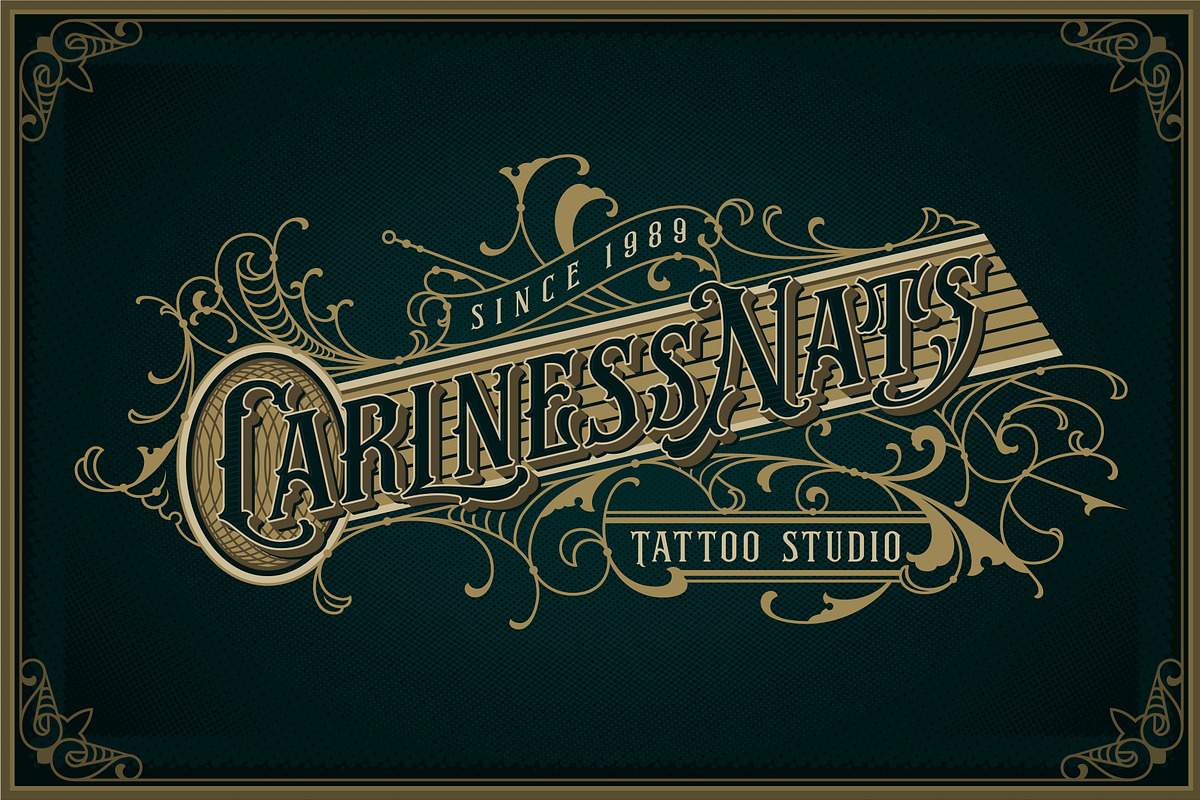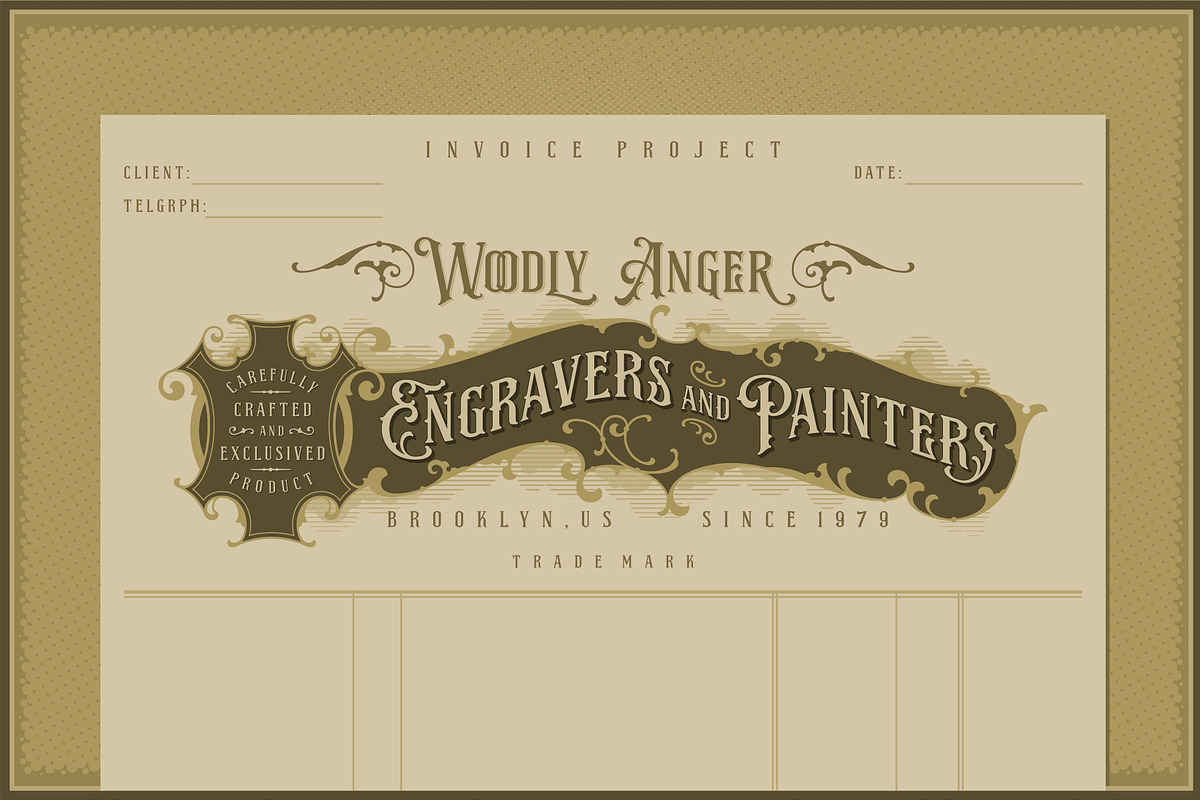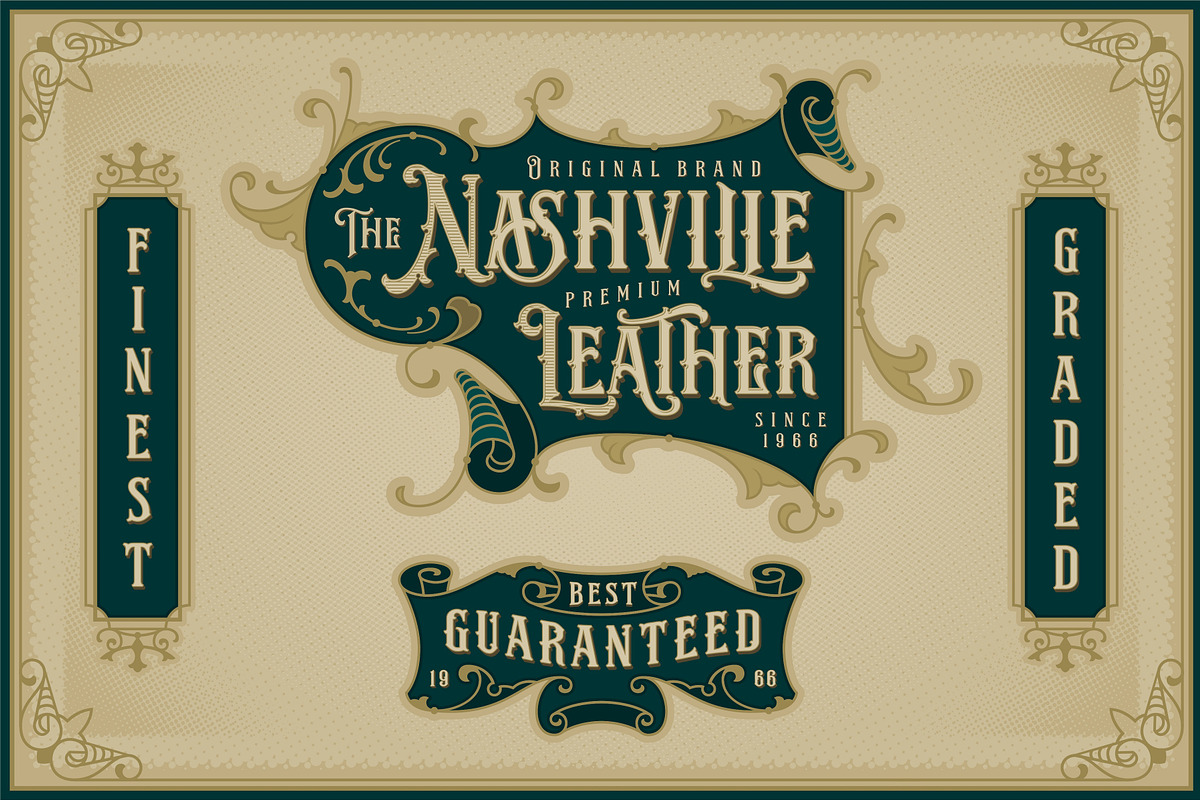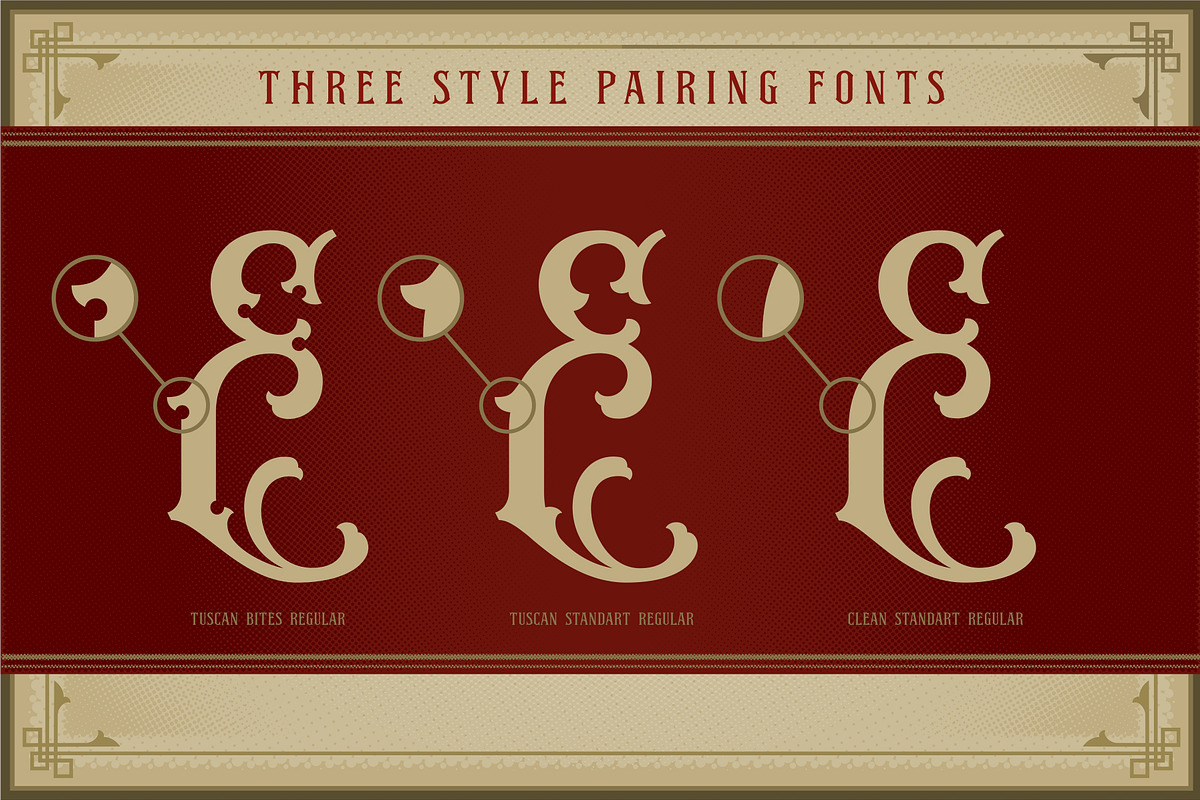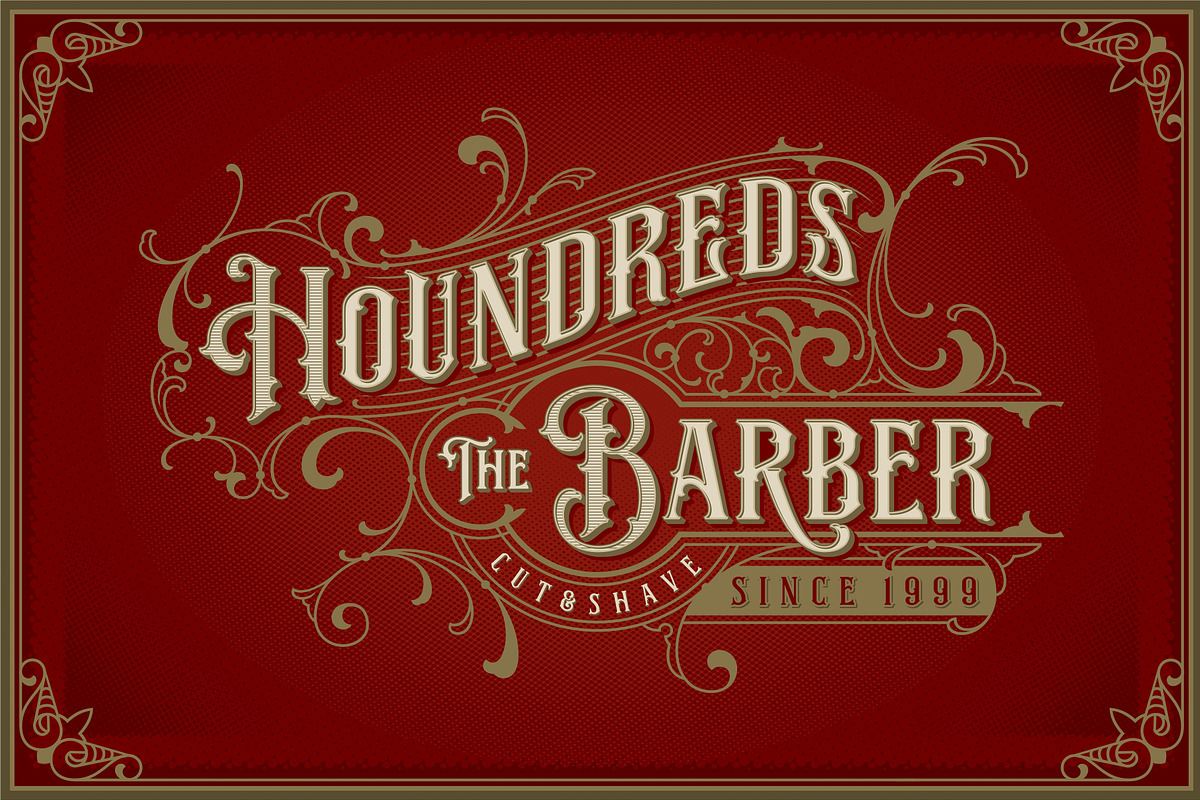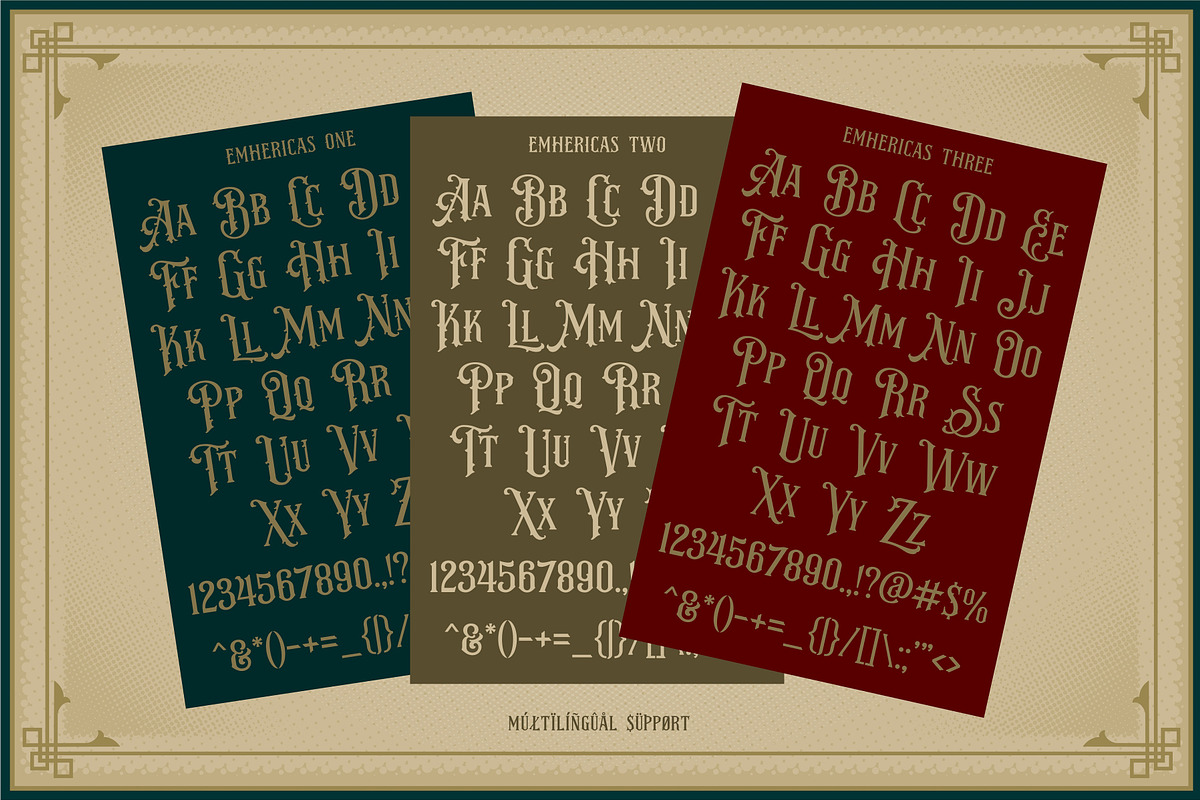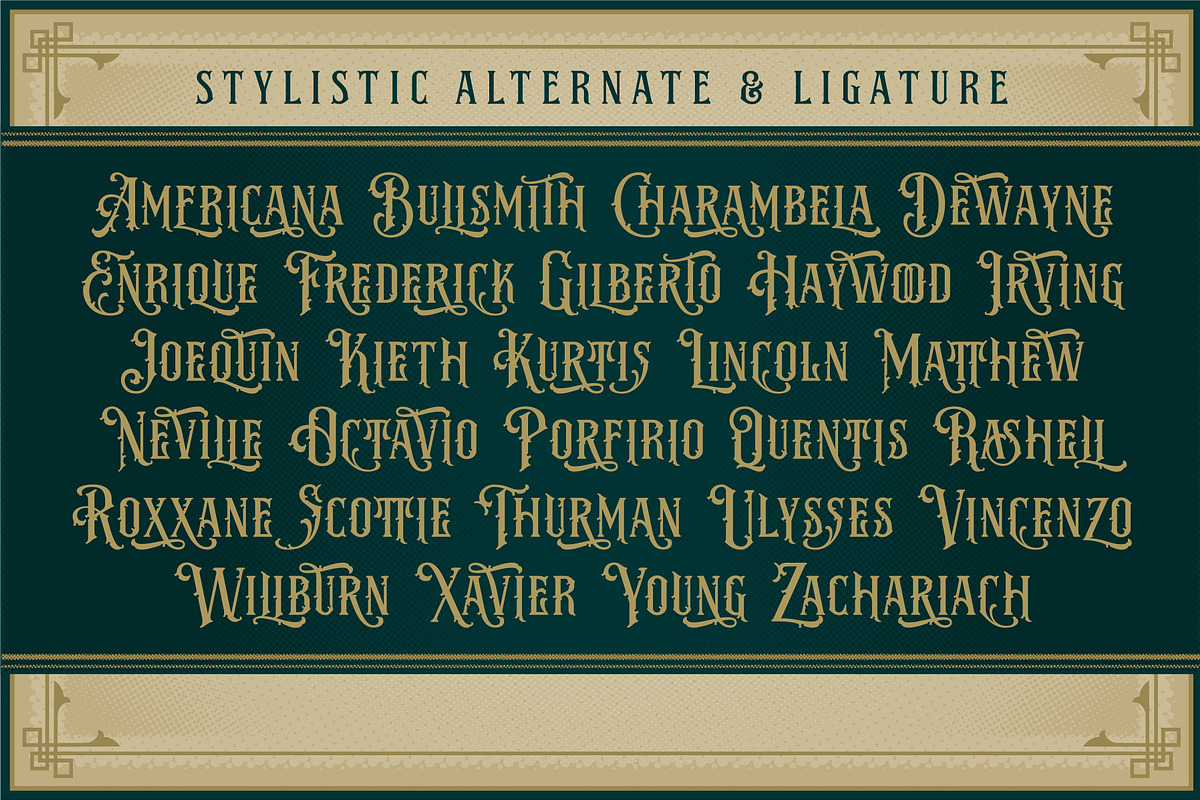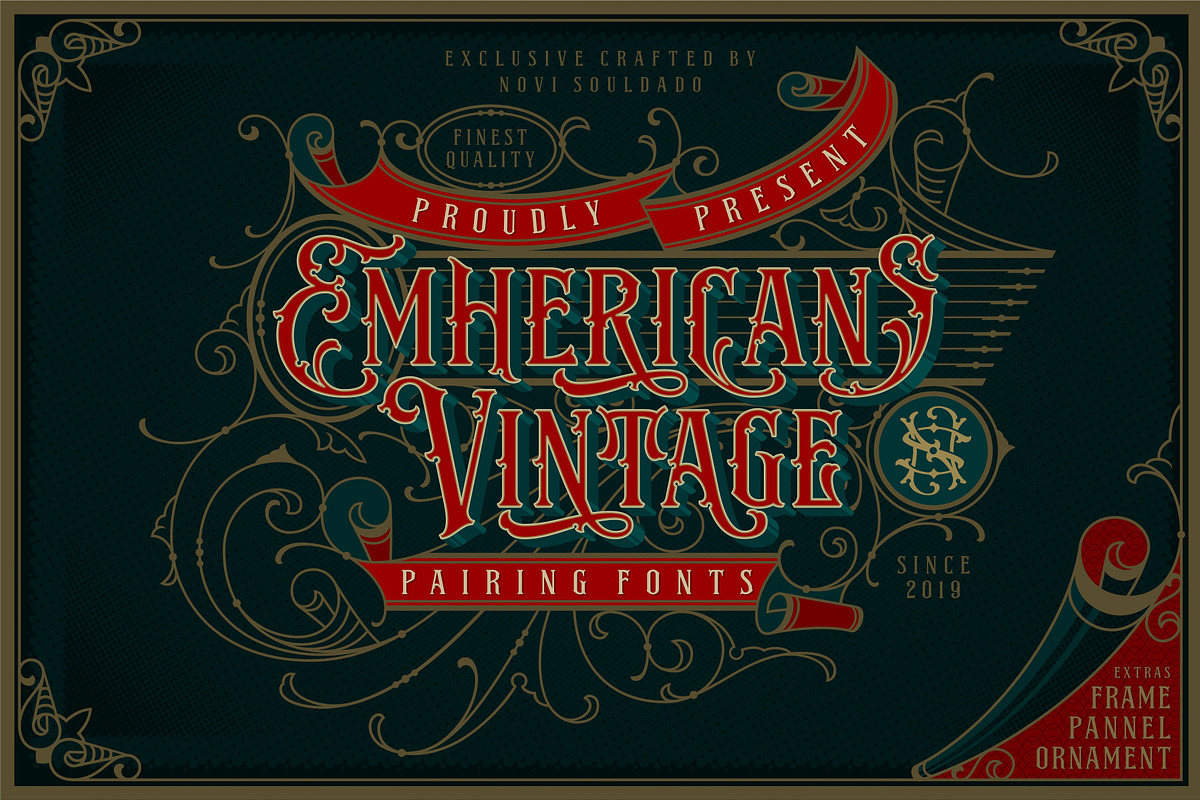
NS Emhericans Vintage Pairing Fonts
NS Emhericans Vintage
A design revelation inspirited by perpetual classics—establishing a graceful, aesthetic, and dynamic font. Introducing a vintage galvanized look typeface named Emherican. Comes with three font pairing combinations, extras ornaments, ligatures, and +60 stylistic alternates—makes it ideal and perfect for creating a design piece inspired by letterheads, posters, signage, charters, labels, packaging, logotypes, etc.
60+ Stylistic Alternates
Standard & Discretionary Ligatures
NS Emhericans Vintage one
NS Emhericans Vintage two
NS Emhericans Vintage three
NS Emhericans Vintage extras